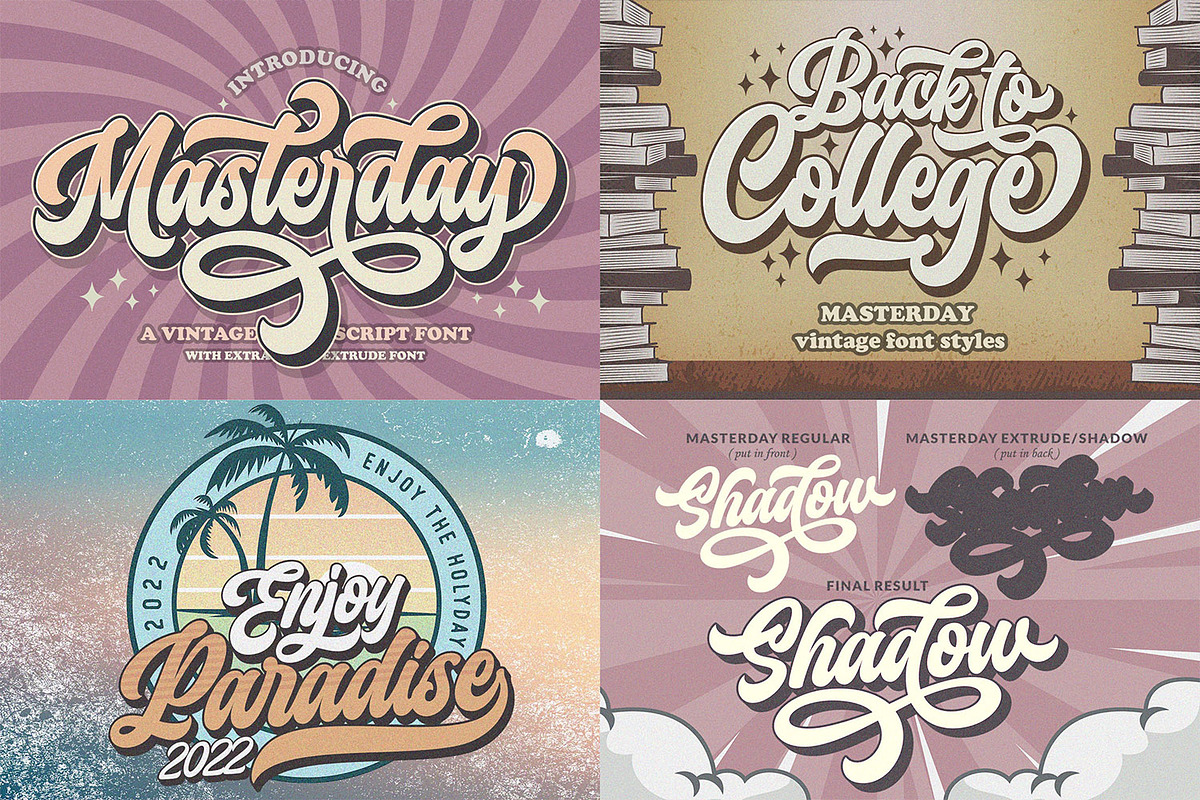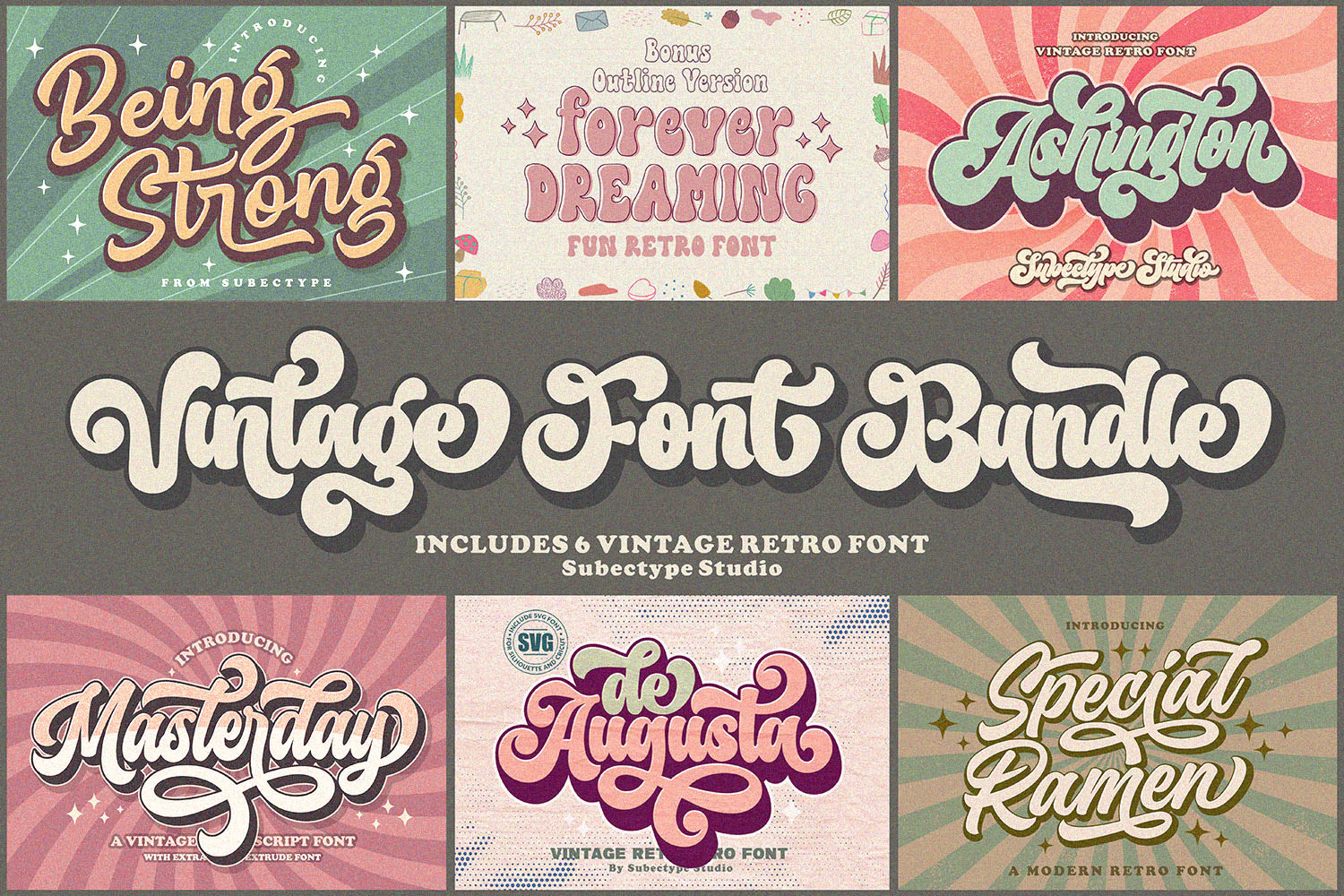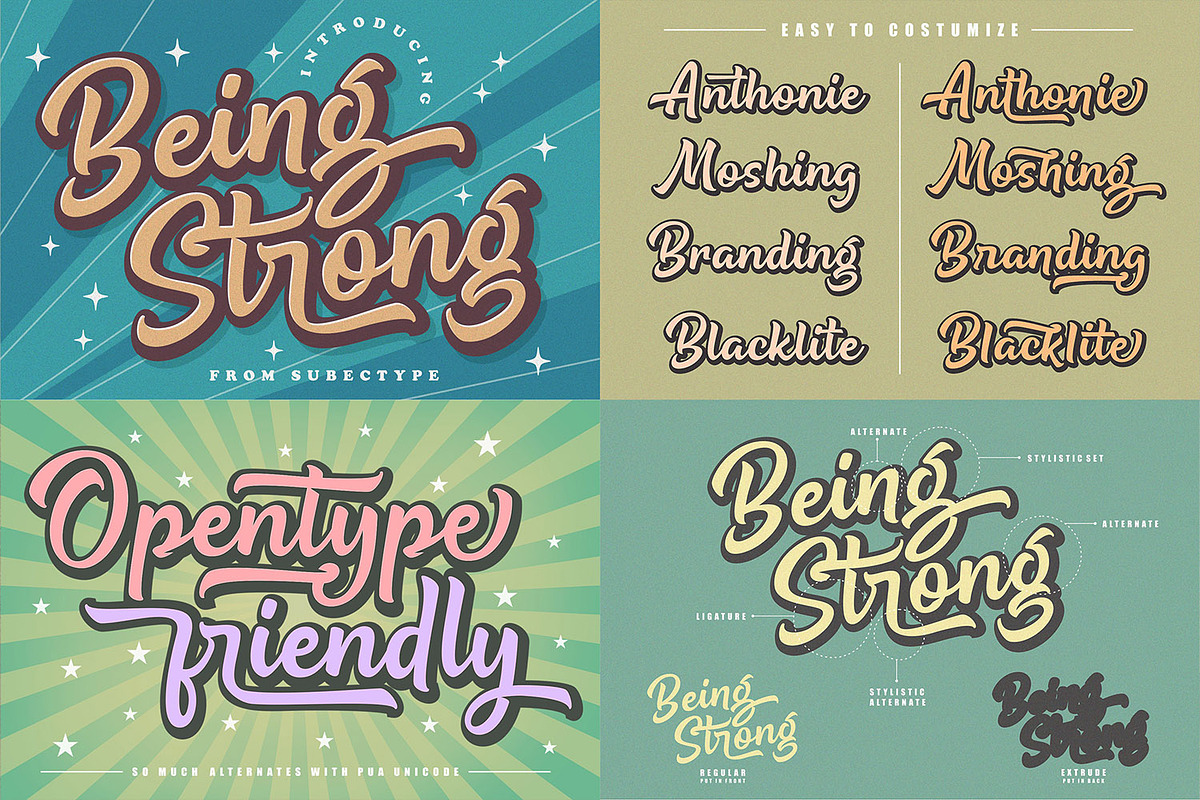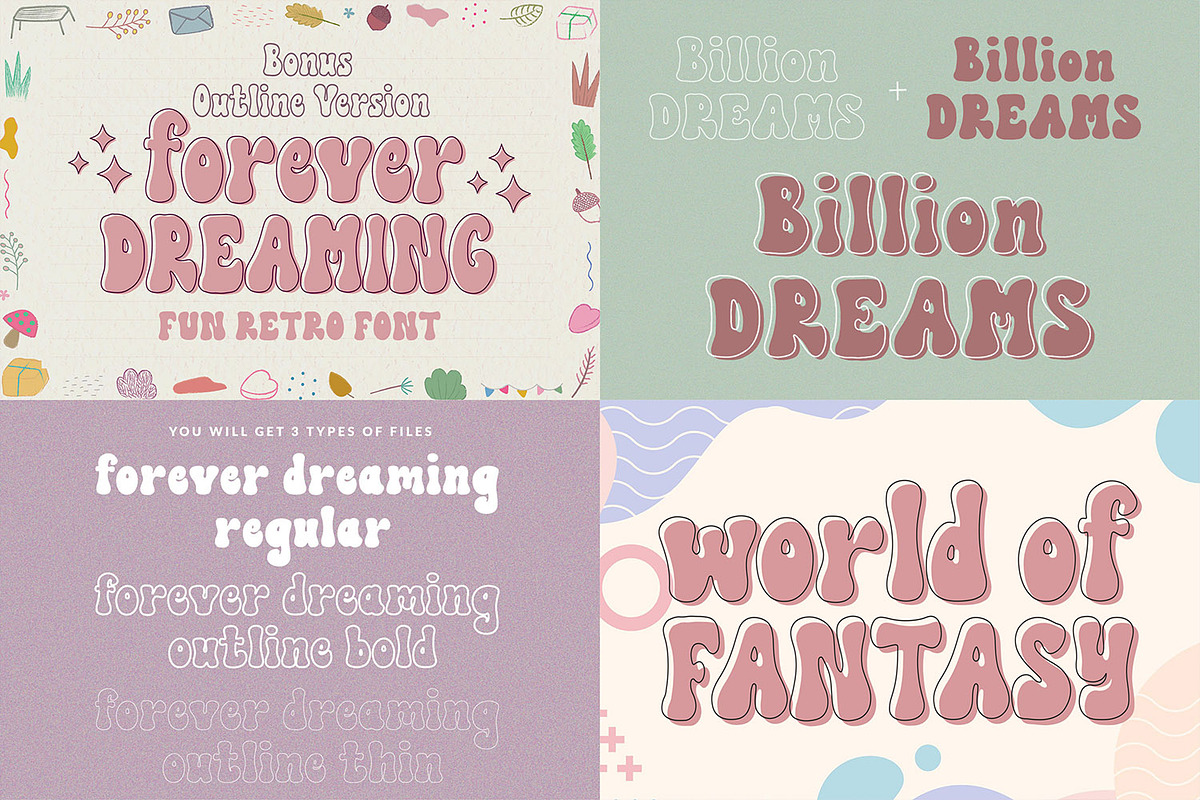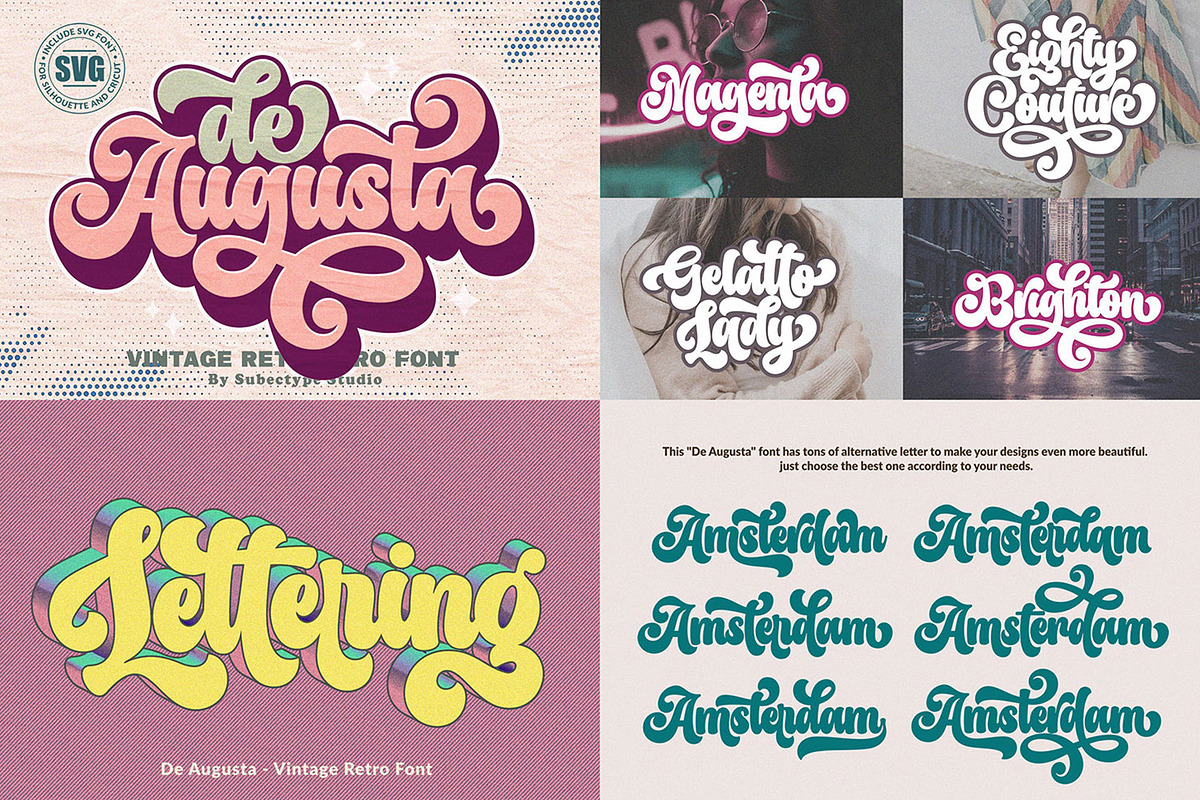
Vintage Retro Font Bundle
6 Vintage Retro Fonts
some are equipped with SVG letter
Multilanguage support on the majority of the fonts.
Suitable for logos, invitation cards, apparels, headlines, business cards, inspirational quotes, t-shirt, posters, wedding design, packaging, and a lot more!